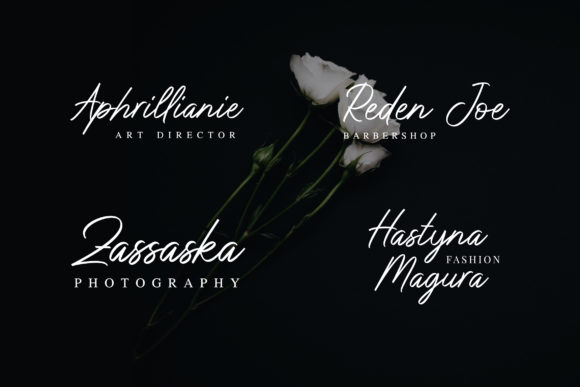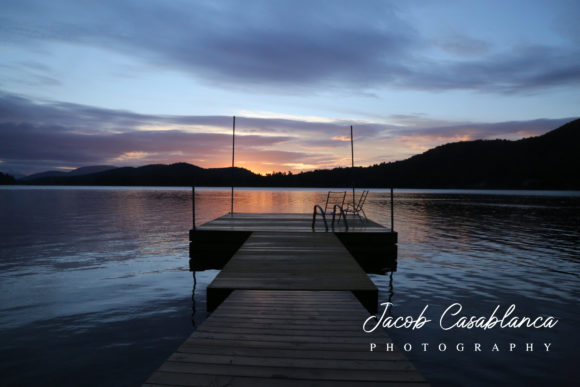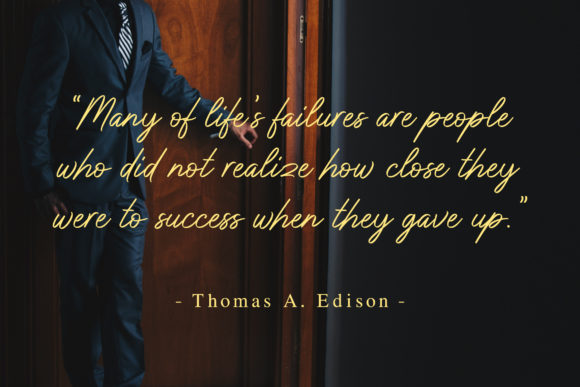
Introduction to Don Carlitto Font
Don Carlitto feels equally charming and elegant.
Key Features of Don Carlitto Font
Why Choose Don Carlitto Font?
Don Carlitto Font offers exceptional quality and versatility, making it a valuable addition to your design toolkit. Whether you’re creating for personal projects or commercial use, Don Carlitto Font delivers professional results.